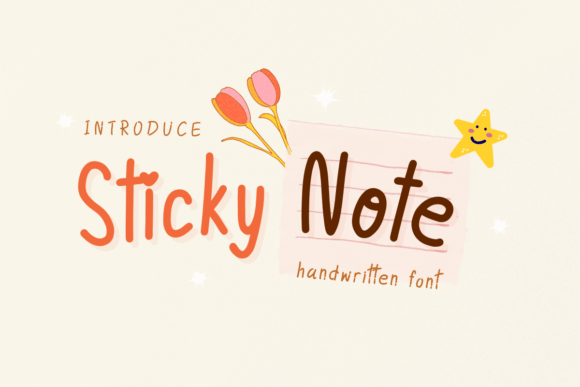
Behold, the captivating Sticky Note Font, a script font family that'll add a touch of whimsy and charm to your creative endeavors. Handcrafted by the talented Khim08Studio, this font exudes simplicity and cuteness, making it an ideal choice for a diverse range of projects.
Journey into a world of imagination, where your words leap off the page with a playful personality. Picture your blog headlines adorned with Sticky Note Font, commanding attention and inviting readers to delve into your captivating content. Let your social media posts dance with delight as this font transforms them into visual feasts, captivating your audience with its playful charm.
Unleash your creativity with the endless possibilities that Sticky Note Font presents. Its versatility knows no bounds, making it a perfect fit for a myriad of applications. From delightful crafts for kids to heartwarming teacher resources, from charming greeting cards to eye-catching logos, this font is your steadfast companion, bringing joy and creativity to every project.
Visualize your designs taking center stage, imbued with a touch of whimsy and uniqueness. Sticky Note Font has a knack for turning ordinary text into extraordinary masterpieces, making it an essential tool for designers, crafters, and content creators alike. Don't miss this chance to elevate your designs to new heights, where creativity flourishes and magic unfolds. Embark on a creative adventure with Sticky Note Font today!